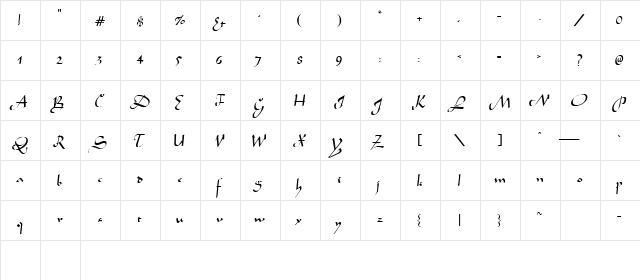
Arabian Regular
Design Context for Arabian Typeface
Arabian takes a measured approach to typography — its balanced proportions and neutral character make it a reliable workhorse for both digital and print work.